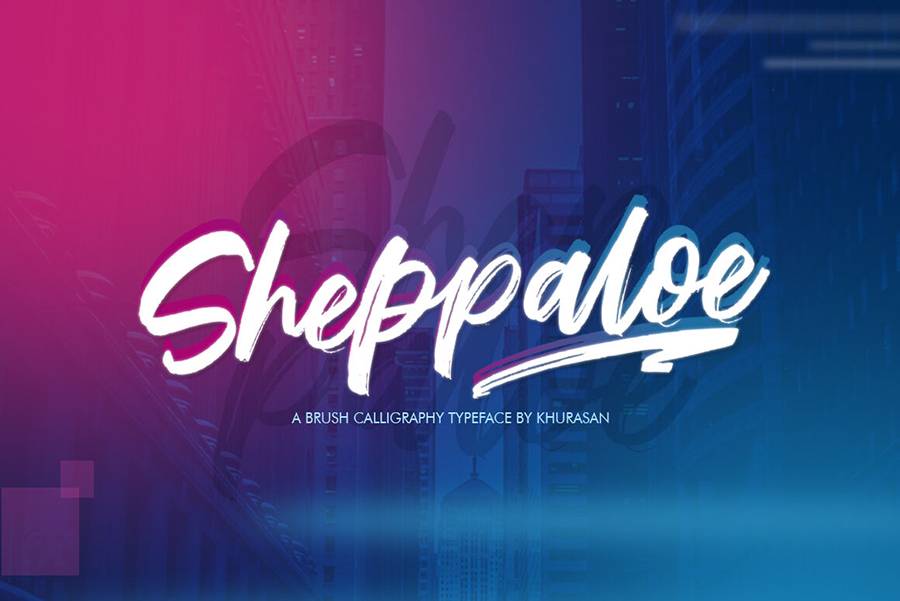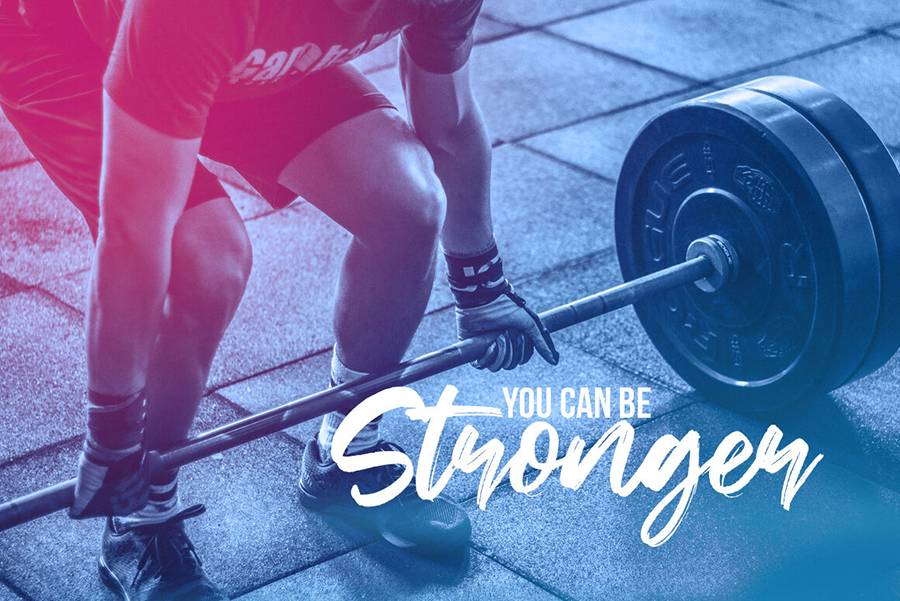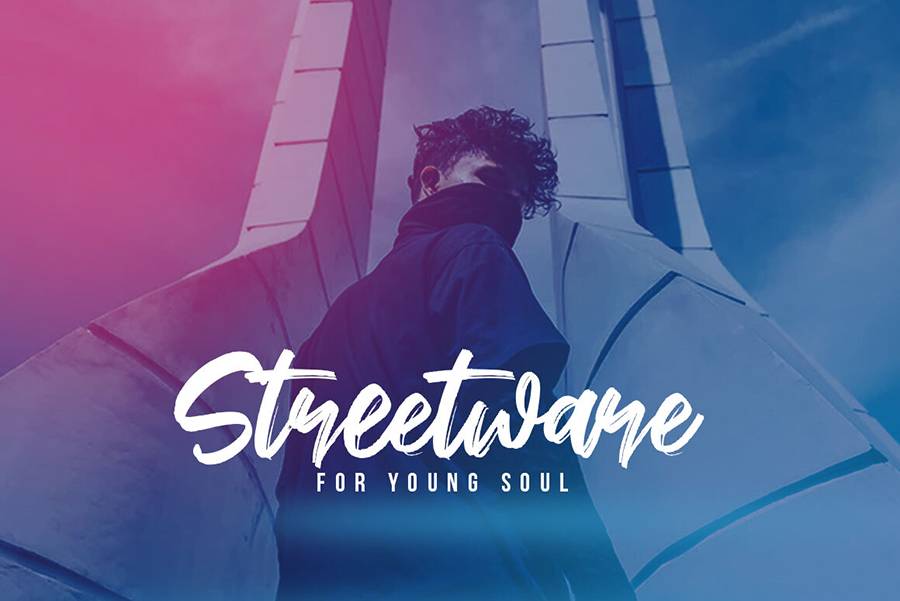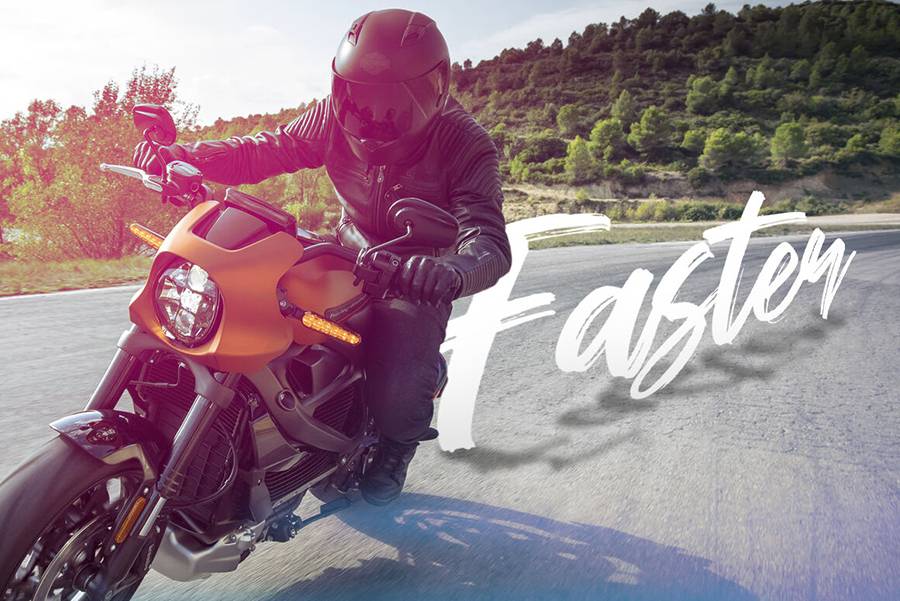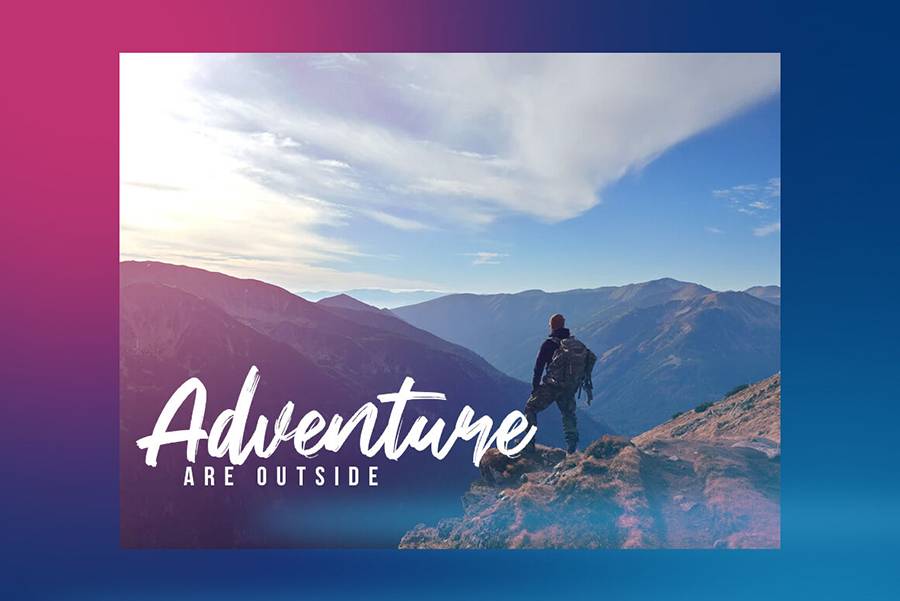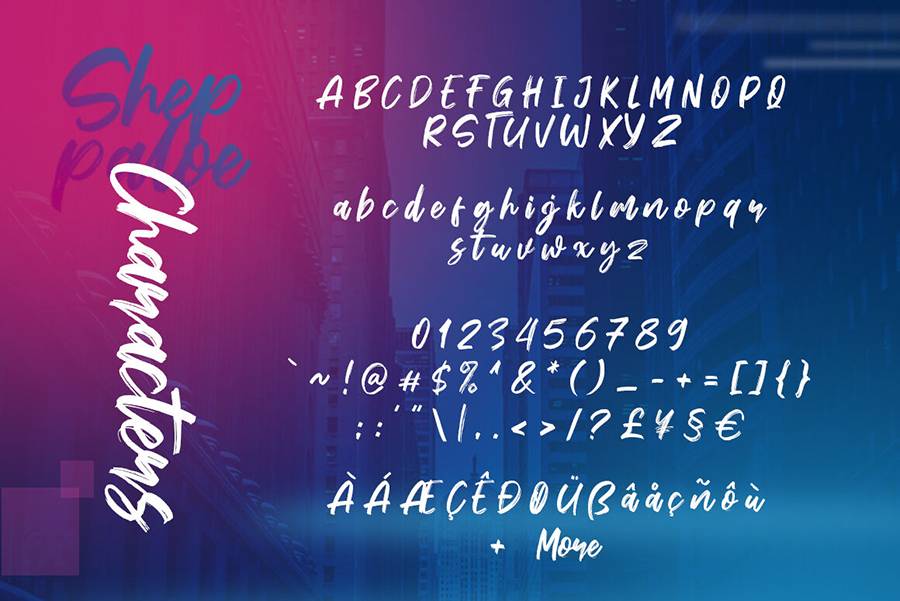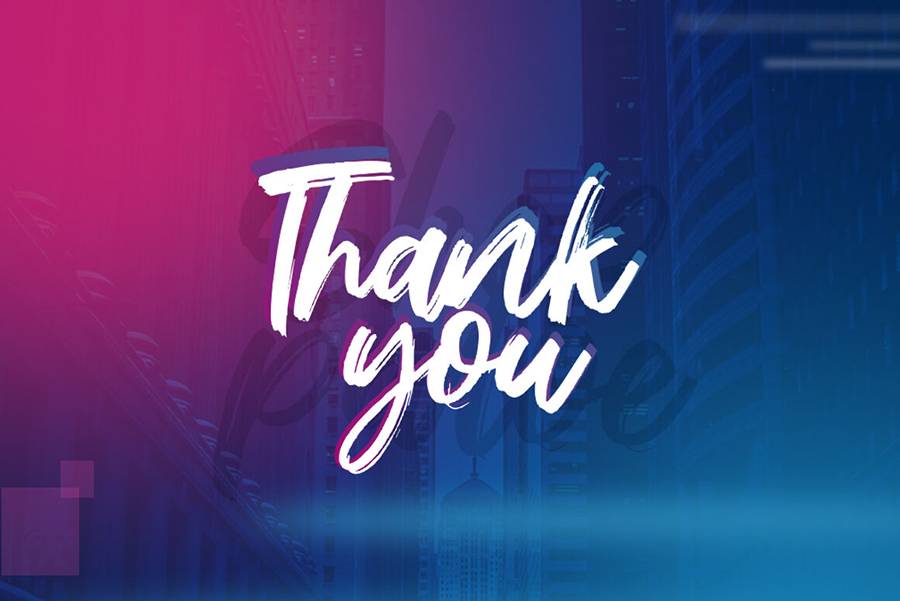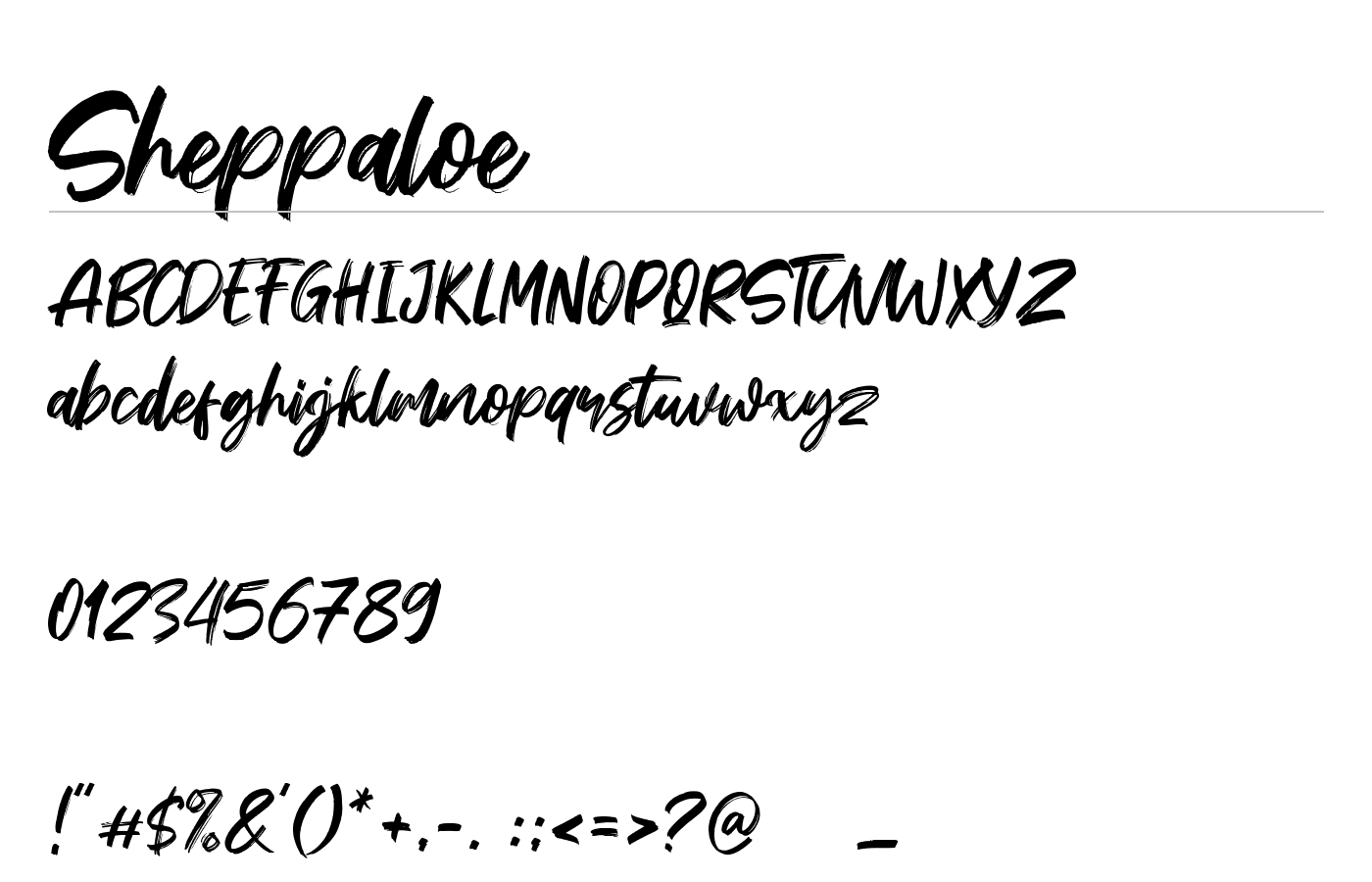
Sheppaloe Script Demo is a lively and bold script font with a hand-painted, brushstroke look that gives it an energetic and personal feel. Its dynamic, irregular strokes and natural flow make it perfect for creative projects, casual branding, and eye-catching headlines that want to convey warmth and expressiveness. This font works wonderfully in designs seeking a modern yet approachable vibe, such as logos, posters, and social media graphics.
Sheppaloe Script Demo
About Sheppaloe Script Demo
| Font family | Sheppaloe Script Demo |